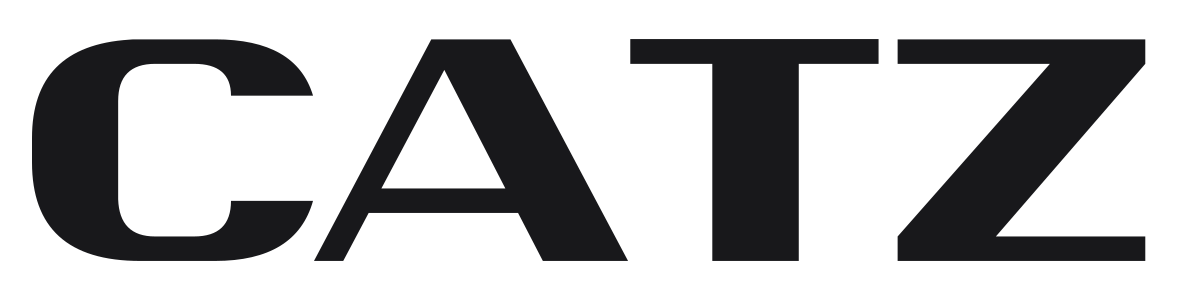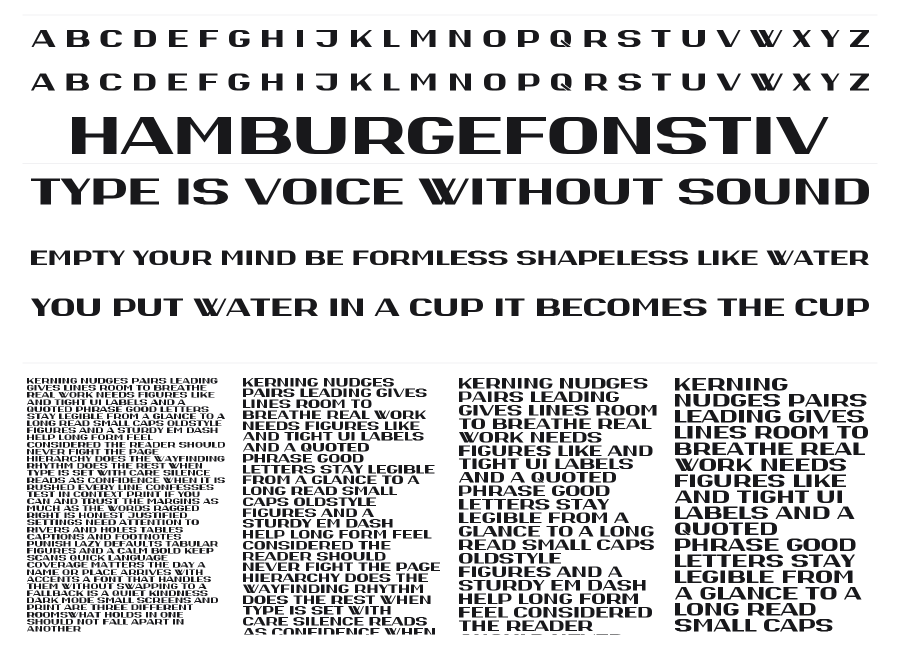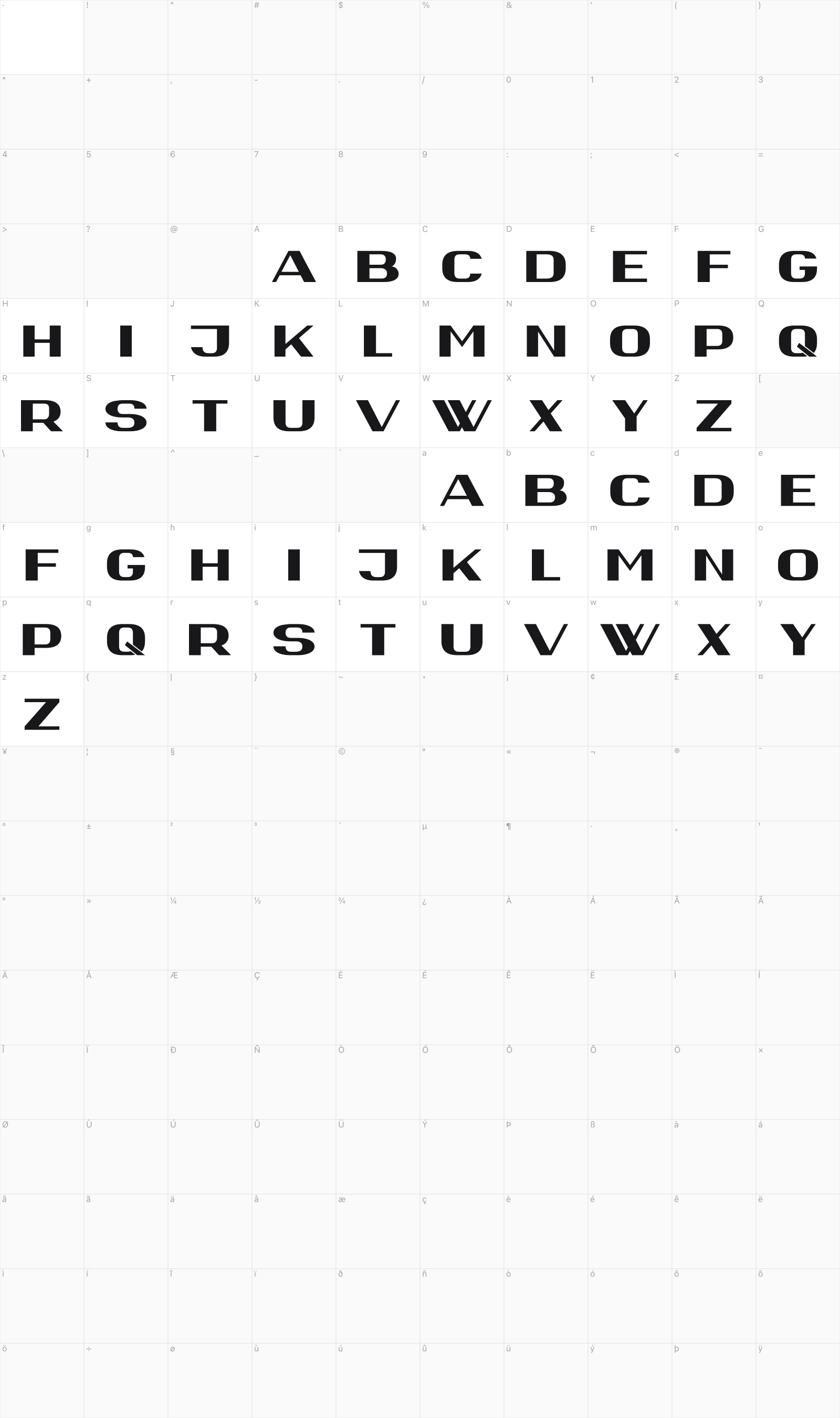
Catz
Catz is a bold, wide geometric sans with a heavy weight and subtly rounded internal corners that give it a modern, machined quality. The broad proportions and tight spacing create a dense, powerful texture across a line of text. It reads with authority at large sizes, landing somewhere between a sports brand wordmark and a sci-fi title card.